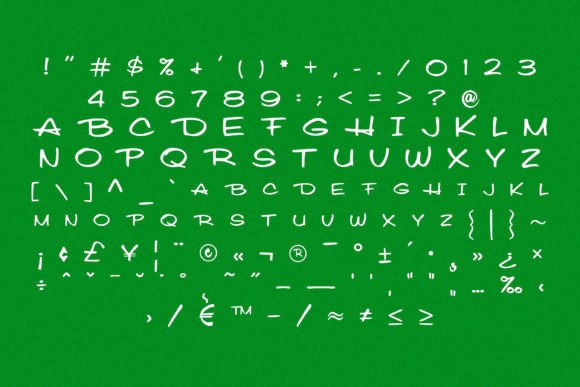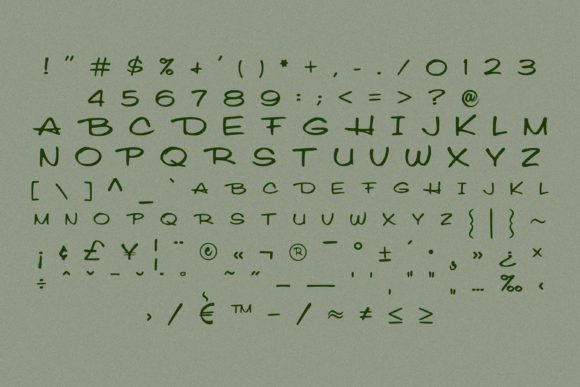
Introducing Central Park Font: The Ultimate Handwritten Comic/Cartoon-Style Font
Are you a designer, crafter, or creative enthusiast looking for a unique and versatile font to elevate your projects? Look no further than Central Park Font, a stunning handwritten comic/cartoon-style font that’s sure to become your new favorite. With its masterful design and endless possibilities, Central Park Font has the potential to bring each of your creative ideas to the highest level!
What is Central Park Font?
Central Park Font is a carefully crafted, handwritten font that embodies the playful and carefree spirit of a comic/cartoon-style design. Its unique and distinctive characters are meticulously drawn to create a visually appealing and engaging aesthetic that’s perfect for a wide range of creative projects. Whether you’re working on a graphic design, crafting a handmade card, or creating digital content, Central Park Font is the perfect choice to add a touch of personality and whimsy.
Key Features of Central Park Font
- Handwritten comic/cartoon-style design: Central Park Font boasts a one-of-a-kind, handwritten design that’s reminiscent of comic books and cartoons.
- Masterful craftsmanship: Each character is carefully crafted to ensure a high level of legibility and aesthetic appeal.
- Endless creative possibilities: Use Central Park Font for a wide range of projects, from graphic design and digital art to crafting and handmade projects.
Who Can Benefit from Central Park Font?
Central Park Font is an excellent addition to any creative arsenal, regardless of your skill level or profession. Here are just a few examples of who can benefit from this amazing font:
- Graphic designers: Add a touch of personality to your designs with Central Park Font, perfect for logos, branding, and marketing materials.
- Crafters and scrapbookers: Use Central Park Font to create handmade cards, scrapbook pages, and other paper crafts that stand out.
- Digital artists and illustrators: Incorporate Central Park Font into your digital art and illustrations for a unique and eye-catching effect.
- Small business owners: Use Central Park Font to create engaging social media graphics, blog posts, and website content that resonates with your audience.
Tips and Inspiration for Using Central Park Font
To get the most out of Central Park Font, here are a few tips and inspiration to get you started:
- Experiment with colors and textures: Central Park Font looks amazing in bold, bright colors and paired with fun textures and patterns.
- Mix and match with other fonts: Combine Central Park Font with other fonts to create a unique and visually appealing contrast.
- Use it for headlines and titles: Central Park Font is perfect for grabbing attention with headlines and titles that pop.
Central Park Font is an exceptional handwritten comic/cartoon-style font that’s sure to become a staple in your creative toolkit. With its masterful design, versatility, and endless creative possibilities, Central Park Font has the potential to elevate your projects and bring your ideas to life. So why wait? Get creative with Central Park Font today and discover a world of limitless possibilities!
Unlock your creative potential with Central Park Font – the ultimate handwritten comic/cartoon-style font for designers, crafters, and creatives of all levels!